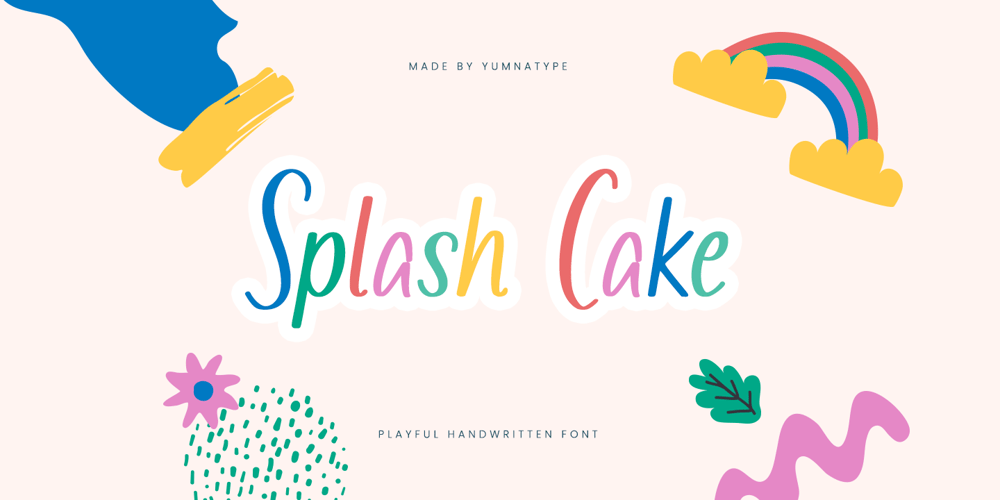
Splash Cake Font Family was designed by Donis Miftahudin and published by Yumna Type. Splash Cake contains 1 styles and family package options. Splash Cake is a whimsical handwritten font that exudes playfulness and charm. Each letter in Splash Cake is crafted with a playful, hand-drawn quality, featuring smooth, rounded forms that evoke a sense of fun and lightheartedness. The thin weight of the font ensures a delicate appearance, perfect for designs that aim to be inviting and cheerful.What sets Splash Cake apart is its low contrast, which maintains a consistent stroke width throughout the letters. This design enhances its soft and approachable look, making it ideal for projects that seek to convey warmth, creativity, and informality. In addition, enjoy the features here.Features: Multilingual Supports PUA Encoded Numerals and Punctuations Splash Cakes fits in headlines, logos, posters, flyers, branding materials, print media, editorial layouts, and many more designs. Find out more ways to use this font by taking a look at the font preview.Thanks for purchasing our fonts. Hopefully, you have a great time using our font. Feel free to contact us anytime for further information or when you have trouble with the font. Thanks a lot and happy designing.